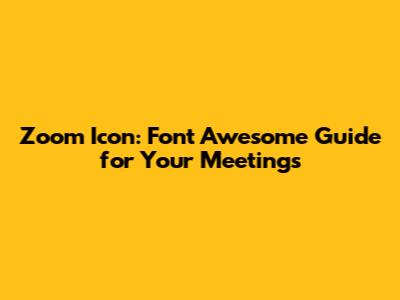
Hey guys! Ever needed a sleek Zoom icon for your website or presentation? Font Awesome's got your back! In this guide, we'll dive into how to snag that perfect Zoom icon using Font Awesome, making your digital presence pop. We'll cover everything from accessing Font Awesome, finding the Zoom icon, and embedding it into your projects. Let's get started and make your icons awesome!
Getting Started with Font Awesome
Before we jump into getting that Zoom icon, let's make sure you're all set up with Font Awesome. Font Awesome is basically a massive library of scalable vector icons that you can customize – size, color, shadow, anything! It's super handy for web developers, graphic designers, and anyone else who wants to add a little visual flair to their projects. So, let’s explore the basics of Font Awesome and why it’s such a game-changer.
First off, what exactly is Font Awesome? Think of it as a treasure chest filled with thousands of icons, all neatly organized and ready to use. These icons aren't your typical images; they're vectors, which means they can be scaled to any size without losing quality. This is crucial for responsive design, where your website needs to look sharp on everything from tiny smartphone screens to large desktop monitors. Font Awesome gives you the flexibility to make your icons look perfect, no matter the context. Plus, these icons are super customizable. You can change their color, size, rotation, and even add effects like shadows or animations. This level of control allows you to seamlessly integrate icons into your brand’s visual identity, creating a cohesive and professional look. Customization options are a huge win for anyone looking to maintain brand consistency across all digital platforms.
Now, why should you even bother with Font Awesome when there are other icon options out there? Well, for starters, Font Awesome is incredibly easy to use. With just a few lines of code, you can embed any icon into your website or application. No need to download individual image files or mess around with complicated CSS sprites. Font Awesome also offers excellent performance. Because the icons are vector-based, they load quickly and don’t hog bandwidth, ensuring your site stays speedy and responsive. This is a big deal for user experience, as slow-loading websites can drive visitors away. Additionally, Font Awesome is constantly updated with new icons and features, meaning you’ll always have access to the latest and greatest in icon design. The active community behind Font Awesome ensures that the library stays relevant and useful, adapting to the ever-changing needs of web developers and designers. And the best part? A large selection of icons are available for free. While there's a Pro version with even more options, the free version is often more than enough for many projects, making it a cost-effective solution for enhancing your site's visual appeal.
Setting Up Font Awesome
Finding the Zoom Icon in Font Awesome
Alright, now for the main event: finding that Zoom icon! Font Awesome has a ton of icons, so it might seem like searching for a needle in a haystack. But don't worry, I'll show you how to find it quickly. Head over to the Font Awesome website and use the search bar. Type in